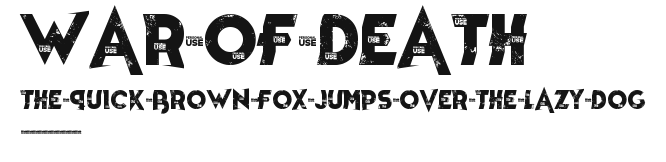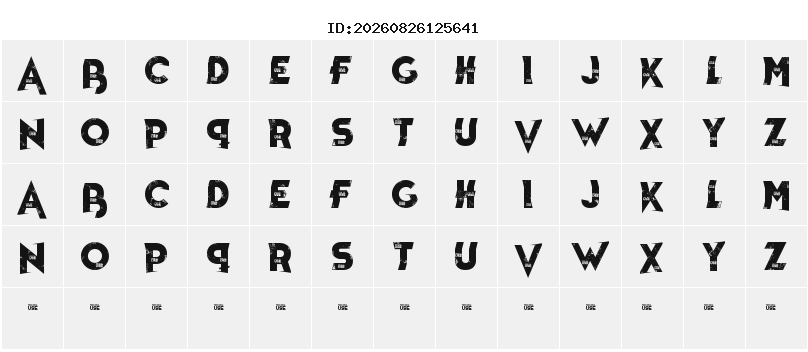
• Font Name: War of Death
• Full Font Name: War of Death Bold
• Designer: Luis Jaramillo
• Manufacturer: LJ Design Studios
• Description: This demo version does not include spacing settings
About War of Death.ttf
War of Death.ttf is a modern, elegant sans-serif font designed for ultimate readability and visual harmony. Perfect for branding, headlines, web design, and print materials.